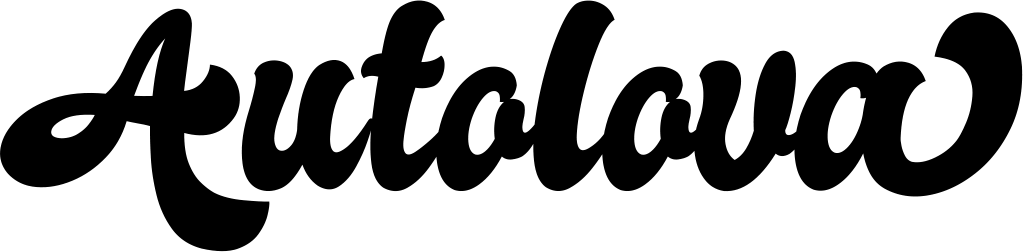
Autolova Font
Autolova font allows you to present many group designs with a cheerful and decorative background, such as flowers. This script font includes all the characters, so you can open an account on this font in the design of flyers and posters and sell the best examples of your work.
This fashion font with characters that have thin and thick lines and balanced washes can be a good choice for many notebook designs, pens, and stationery.